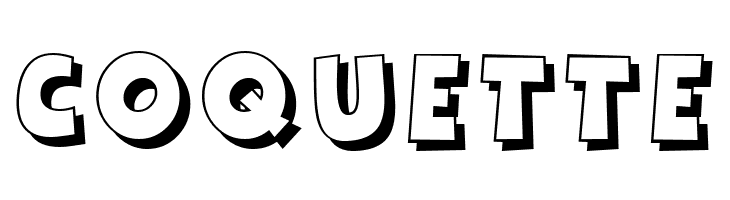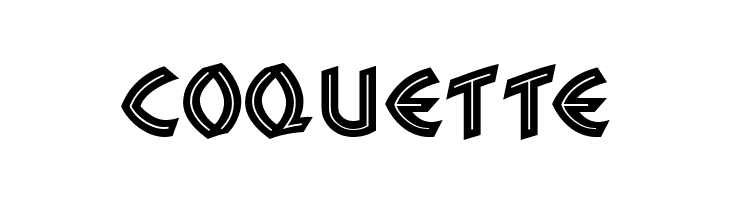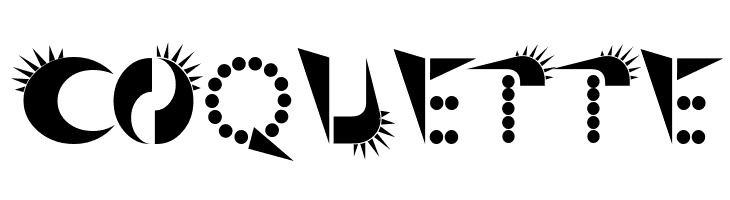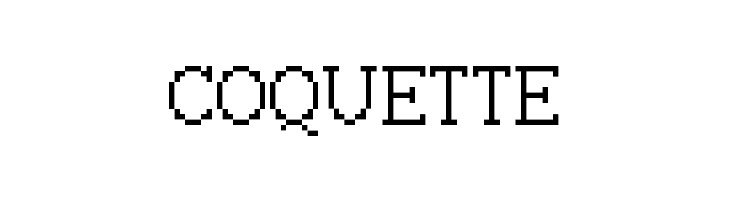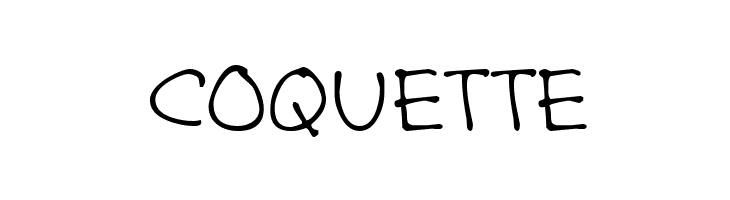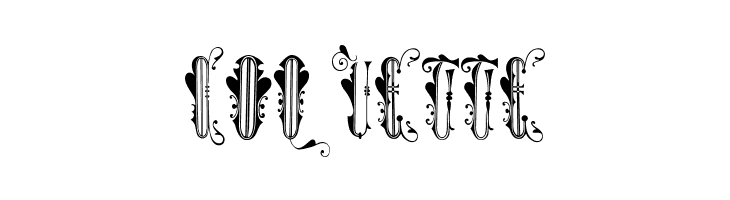
A modern, light serif font with elegant proportions and excellent readability.
A bold serif font with strong, legible letterforms and a modern classic style.
A bold, modern font with thick strokes and a strong presence.
A modern, light sans-serif font with clean lines and excellent readability.
A sleek, minimalist font with thin, uniform strokes and a modern aesthetic.
A modern, clean sans-serif font with a friendly and versatile design.
A bold, modern sans-serif typeface with clean lines and excellent readability.
A sleek, modern, light italic font with smooth curves and balanced spacing.
A bold, italic sans-serif font with a modern and dynamic style.
A modern, italicized sans-serif font with clean lines and excellent readability.
A bold, modern sans-serif font with excellent readability and balance.
A sleek, modern hairline italic font with elegant and fluid characteristics.
A modern serif font with elegant italic styling and sharp serifs.
A modern serif typeface with high contrast and elegant serifs.
A bold, geometric font with angular, structured letterforms and a modern aesthetic.
A classic serif font with elegant, balanced proportions and refined details.
A modern, geometric sans-serif typeface with clean lines and uniform strokes.
A bold Blackletter font with sharp, angular lines and a medieval aesthetic.
A bold, geometric font with rounded strokes and a modern aesthetic.
A light, geometric sans-serif font with a clean and elegant design.
A sleek, modern, and elegant light italic font with balanced character spacing.
A modern, italic sans-serif font with a geometric touch and elegant style.
A sleek, modern typeface with thin, italicized strokes.
A minimalist, geometric sans-serif font with thin strokes and a modern aesthetic.
A playful, hand-drawn font with a whimsical and casual style.
A pixelated, monospaced font with a retro digital aesthetic.